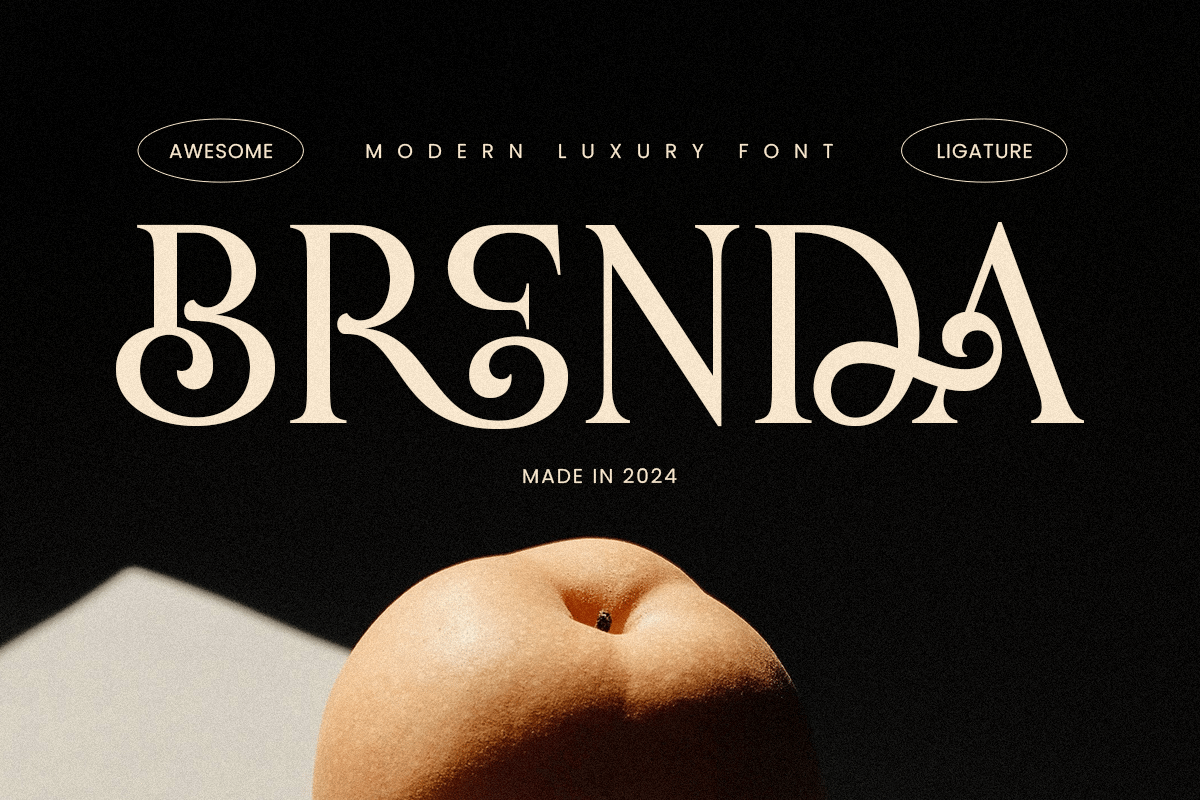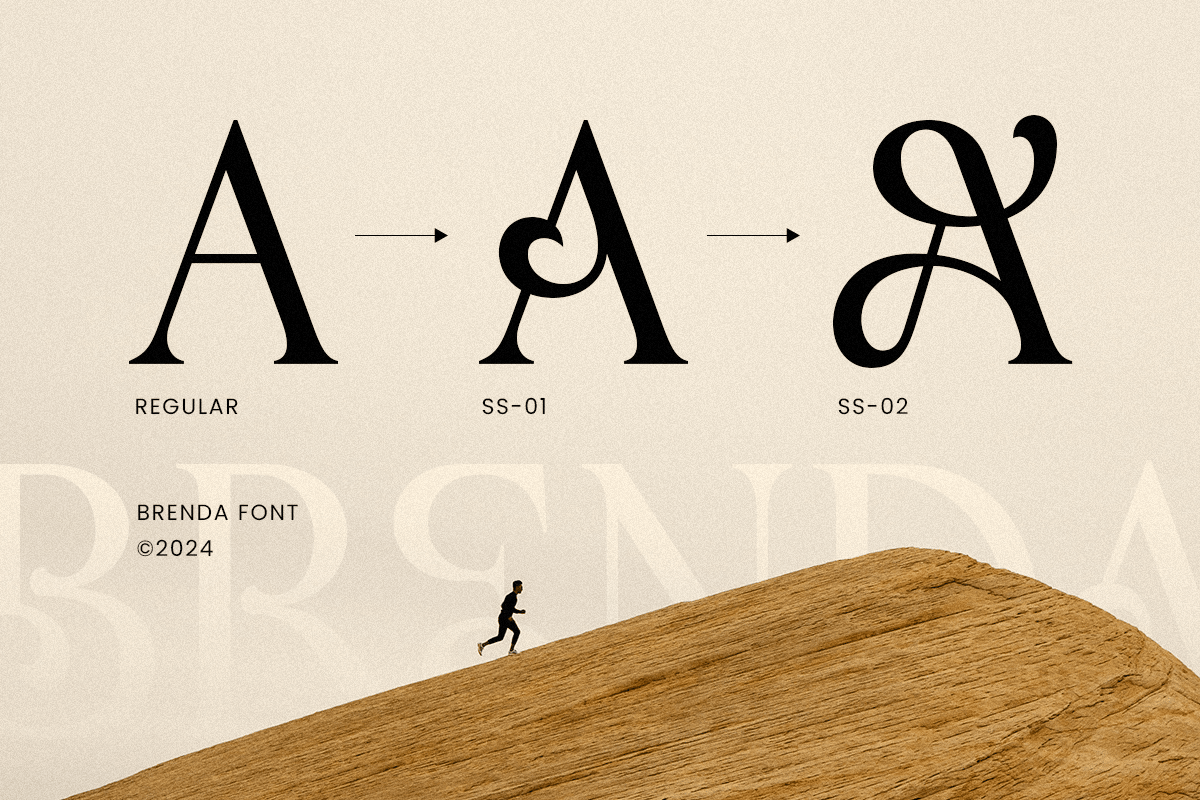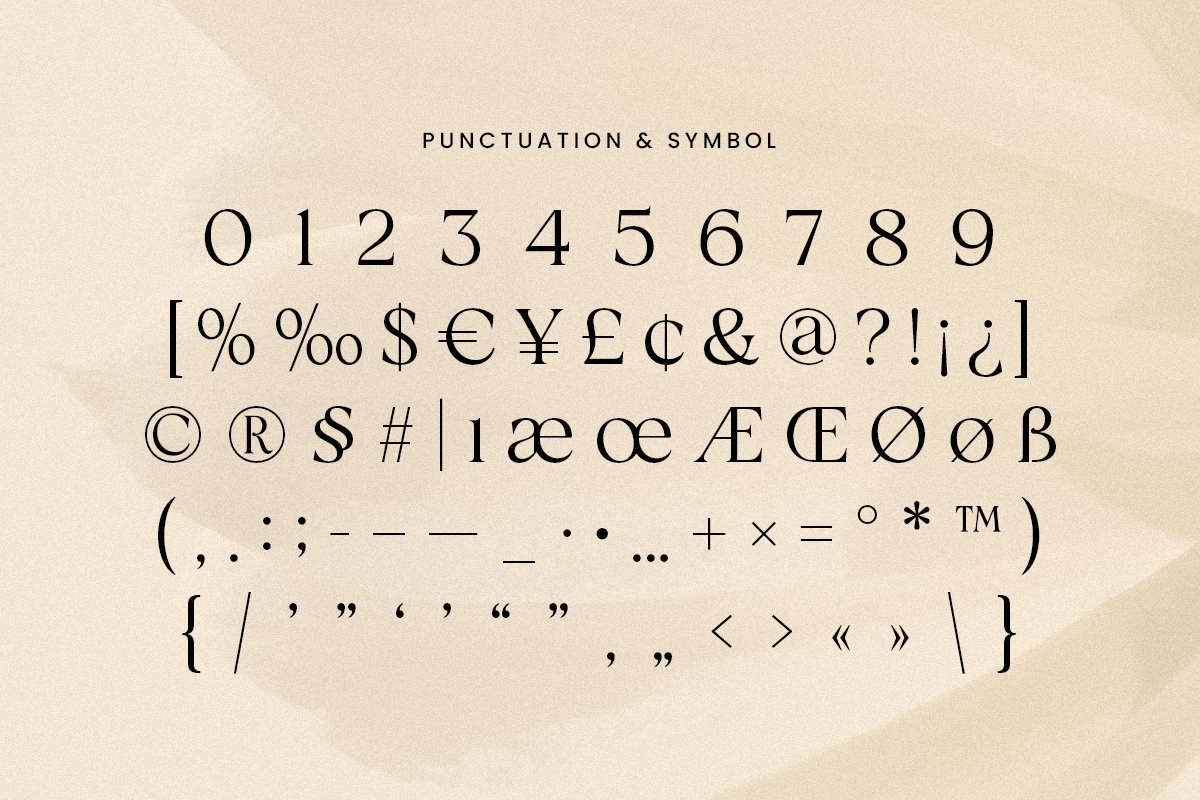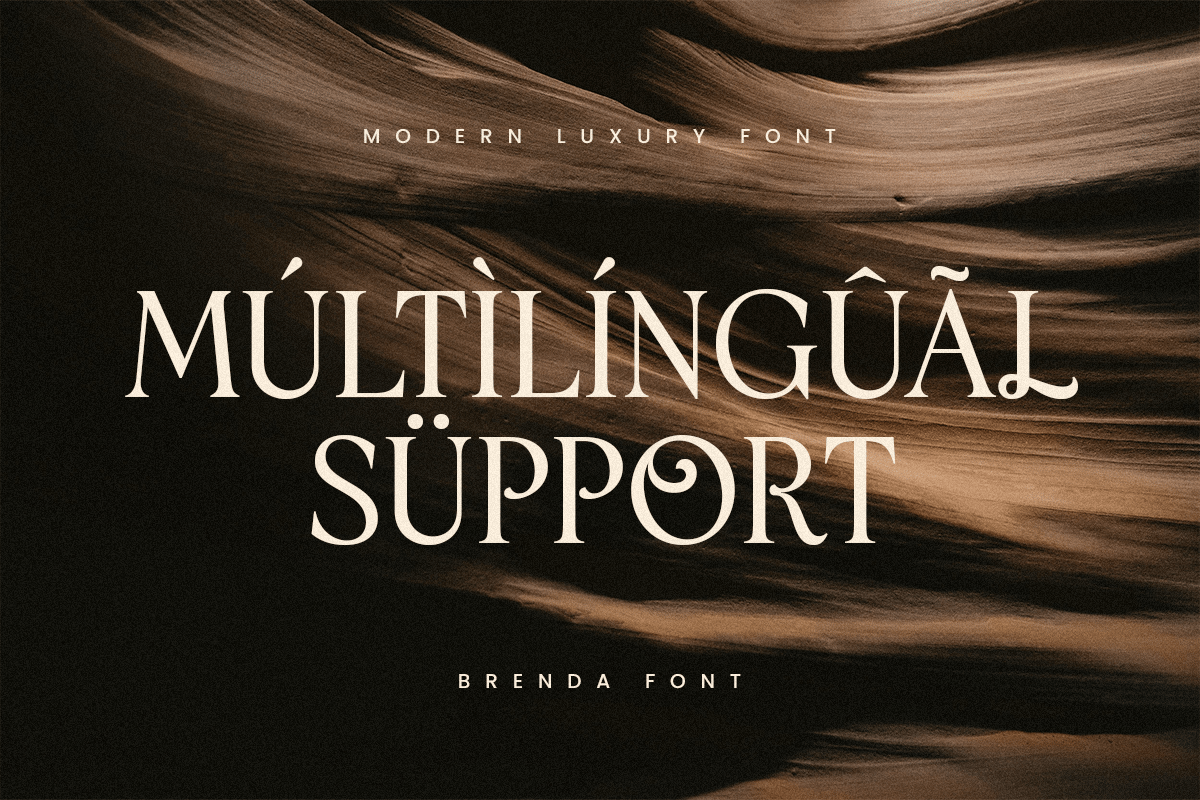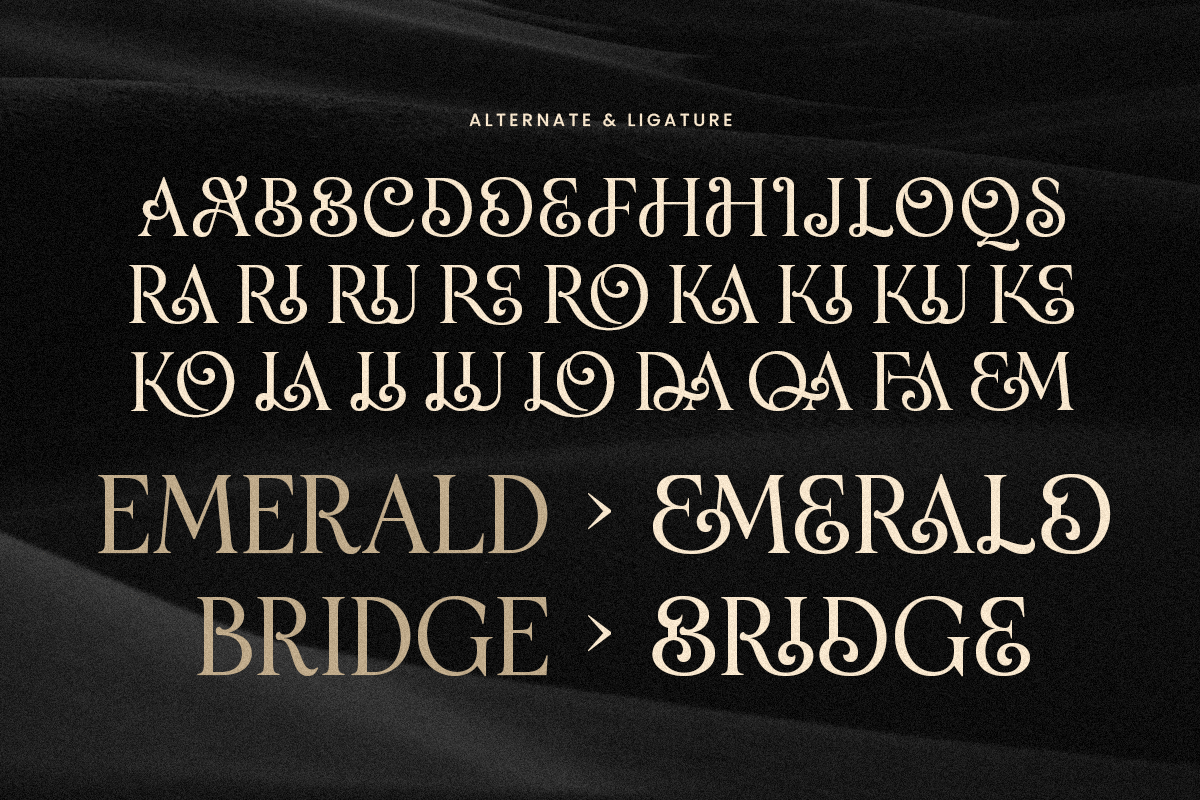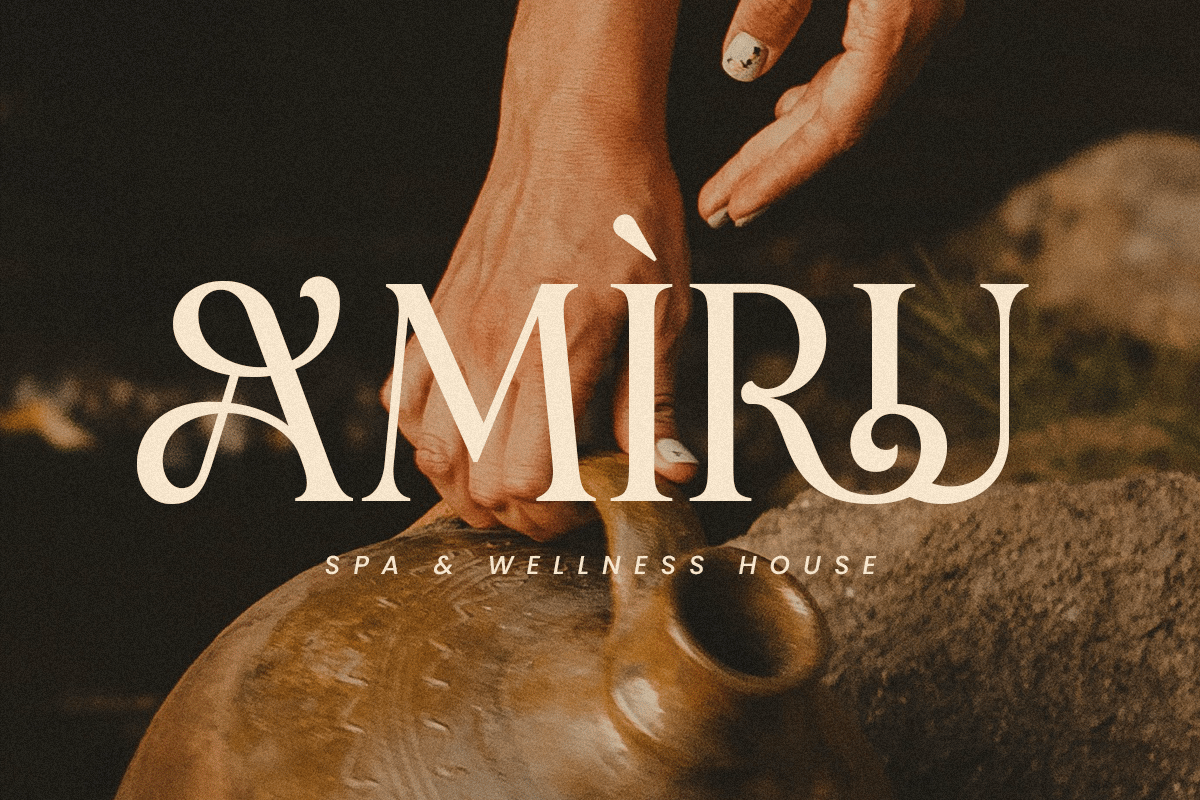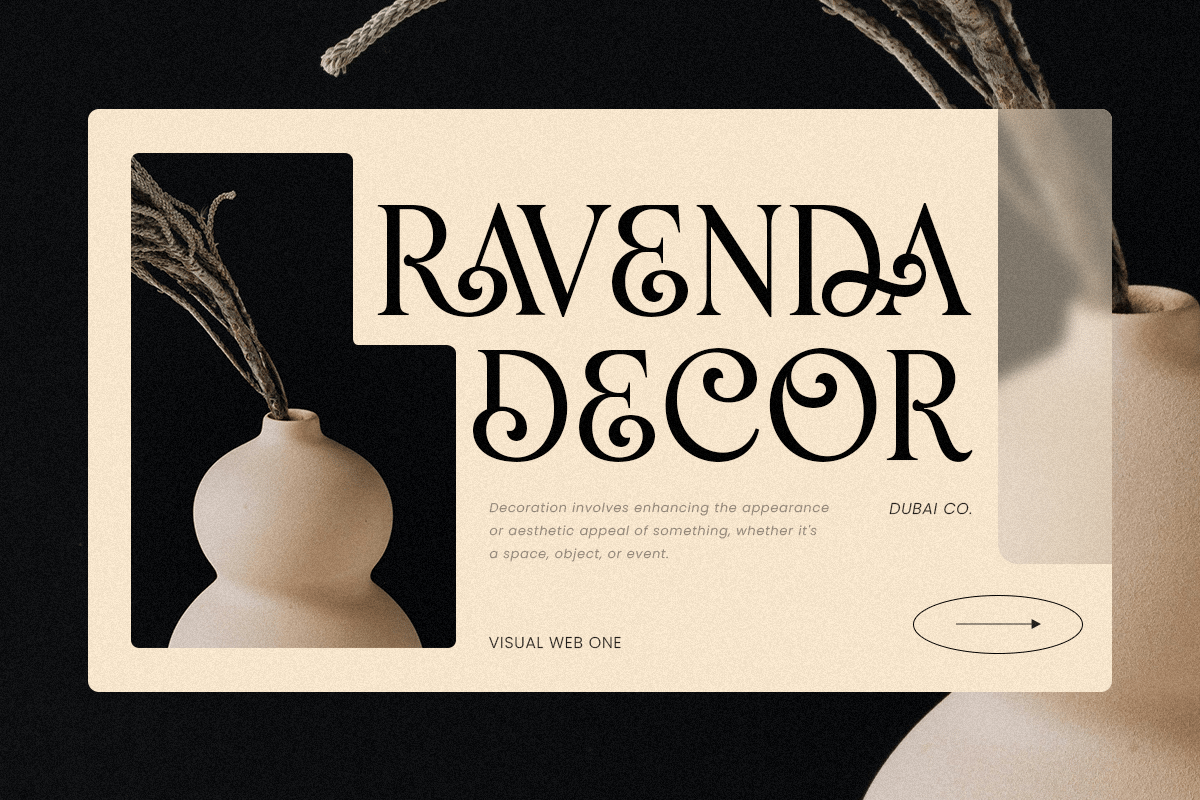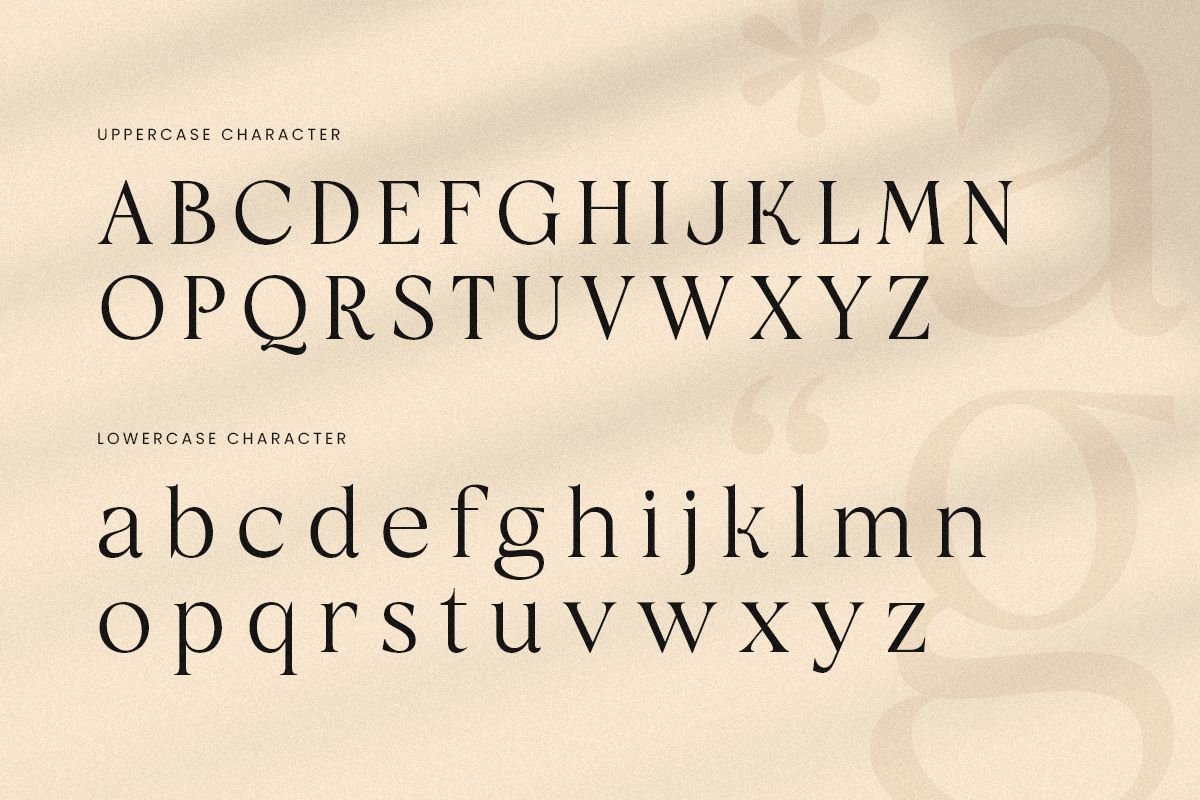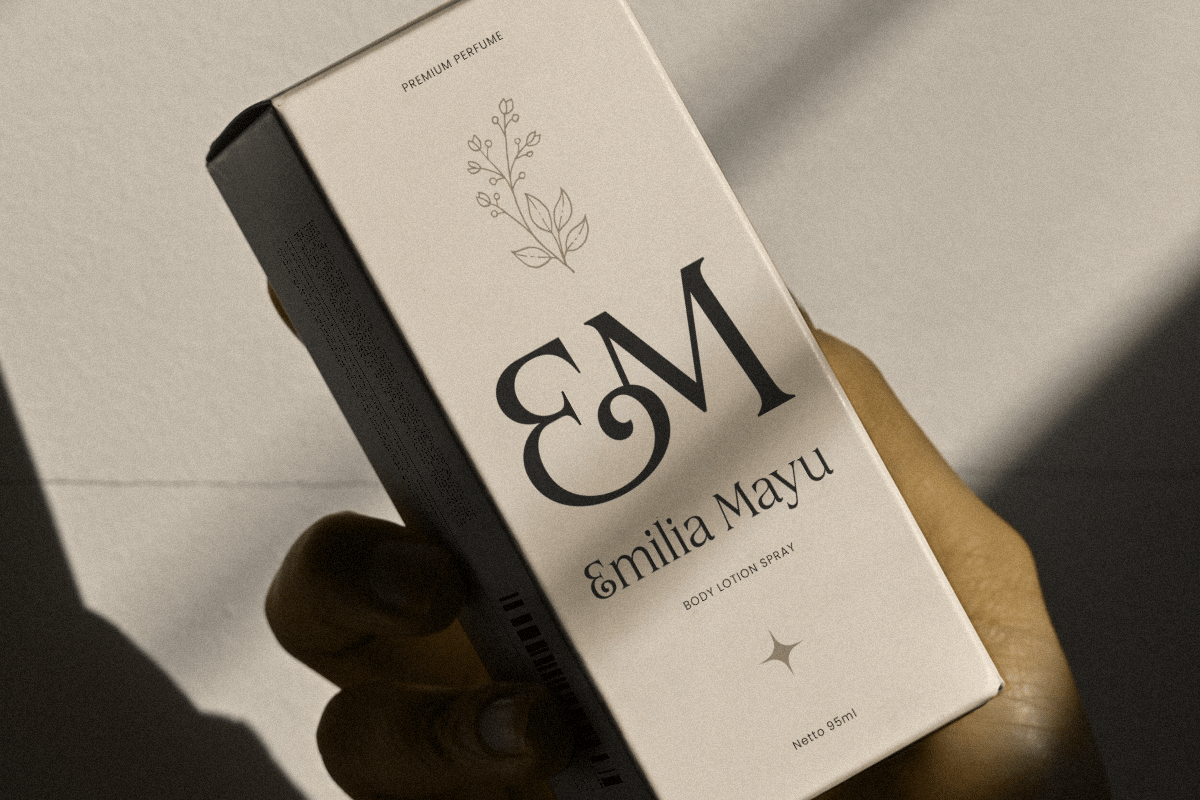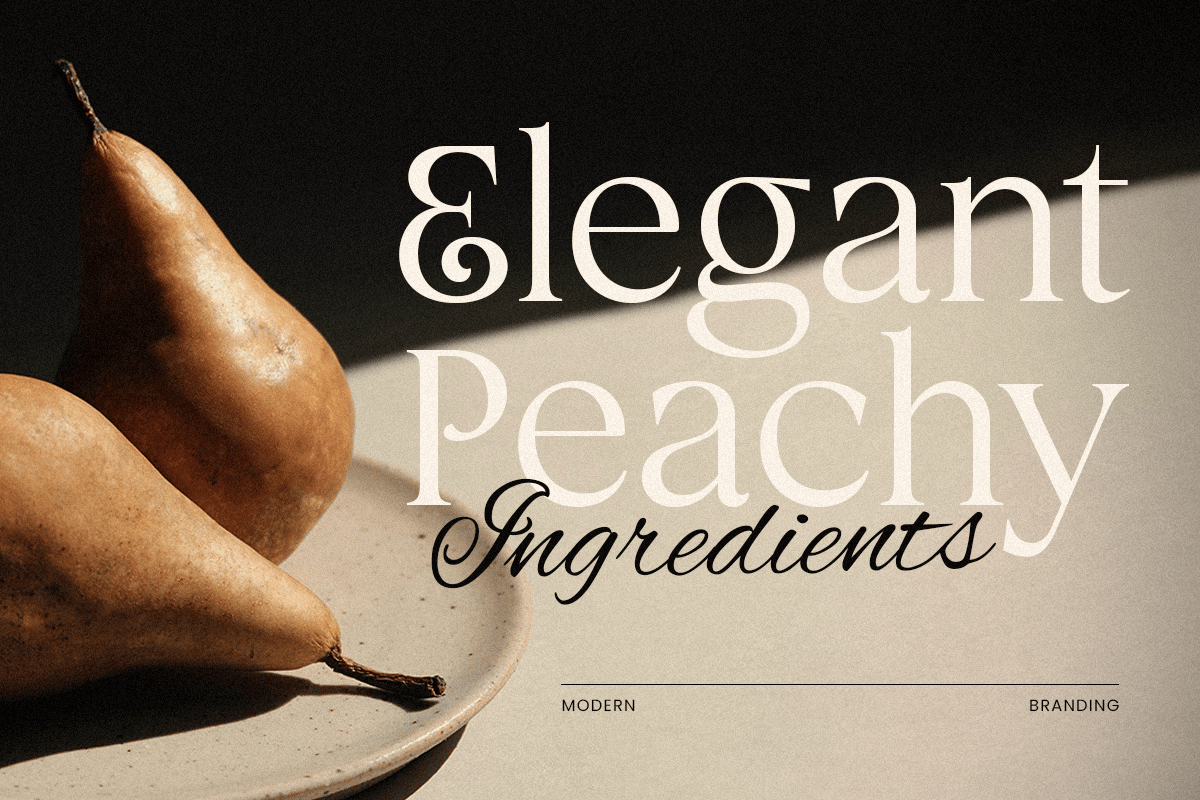
Brenda – Modern Luxury Font
Brenda is a modern luxury font crafted for those who seek elegance and sophistication in their design projects. Its clean lines and refined style make it an ideal choice for high-end branding, from fashion labels to luxury goods. Brenda brings a sense of exclusivity and class, elevating any design it graces with a polished, upscale feel.
Drawing inspiration from modern luxury aesthetics, Brenda’s balanced forms and subtle curves add a touch of timeless beauty. Whether used in logos, magazines, or upscale product packaging, this font seamlessly blends with contemporary and classic design elements, making it versatile for various projects that demand a premium look.
Unlock a world of refined branding possibilities with Brenda, a font that speaks to a luxurious and modern audience. Its stylish character ensures your message resonates with clarity and elegance, perfect for digital or print media.
Brenda Modern Luxury Font Features:
- Elegant and Sophisticated Character Set
- Unique Ligature & Alternative Characters
Multilingual Characters available for:
Afrikaans, Albanian, Asu, Basque, Bemba, Bena, Breton, Chiga, Cornish, Dutch, English, Estonian, Filipino, Finnish, Friulian, Galician, German, Gusii, Indonesian, Irish, Italian, Kabuverdianu, Kalenjin, Kinyarwanda, Luo, Luxembourgish, Luyia, Machame, Makhuwa-Meetto, Makonde, Malagasy, Manx, Morisyen, North Ndebele, Nyankole, Oromo, Portuguese, Quechua, Romansh, Rombo, Rundi, Rwa, Samburu, Sango, Sangu, Scottish Gaelic, Sena, Shambala, Shona, Soga, Somali, Spanish, Swahili, Swedish, Swiss.